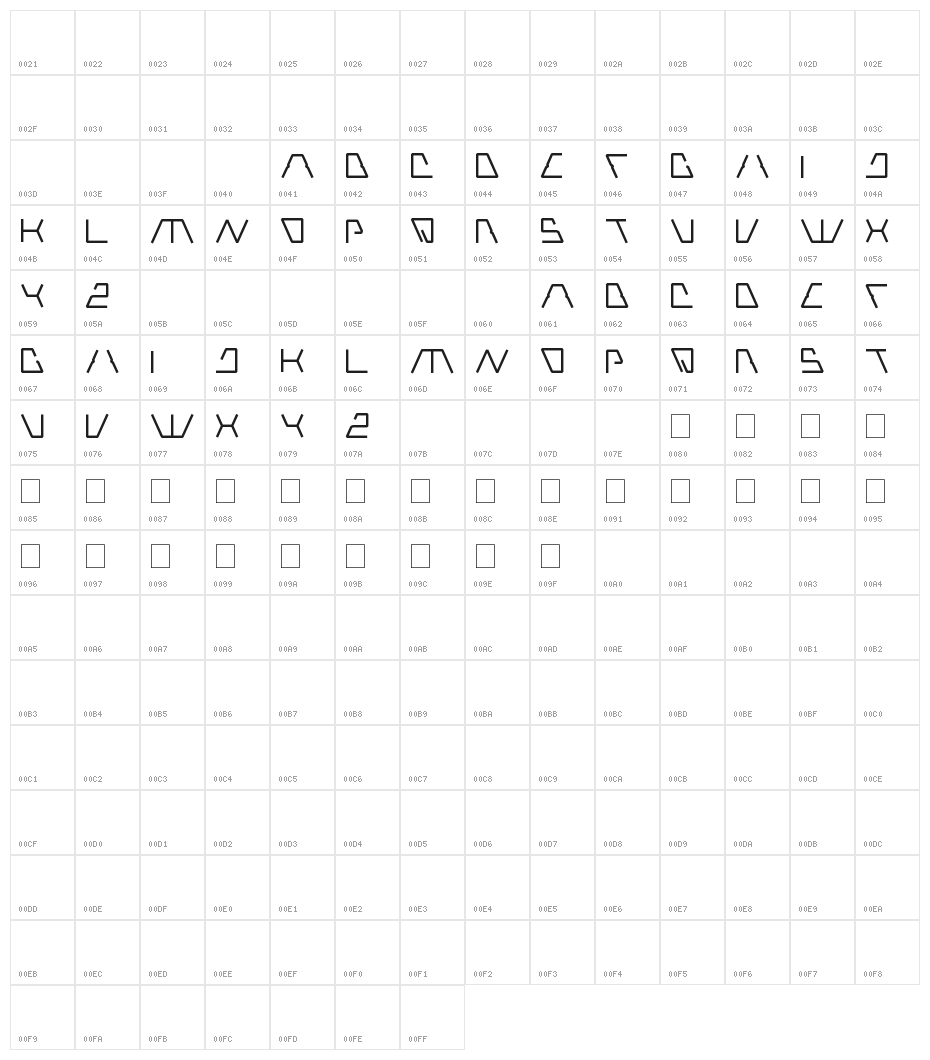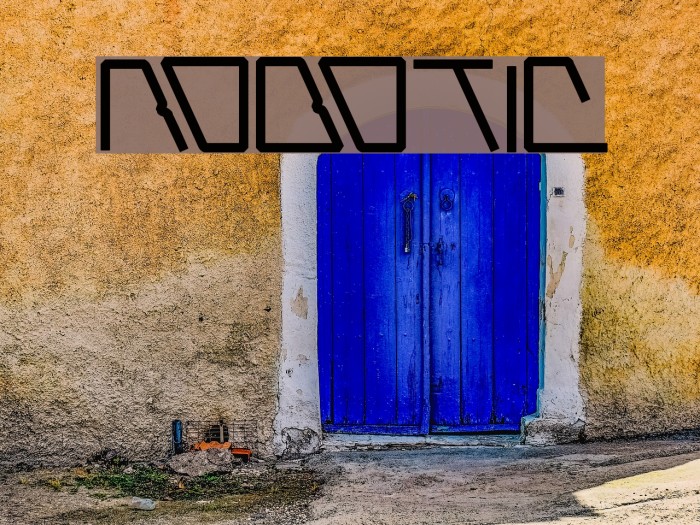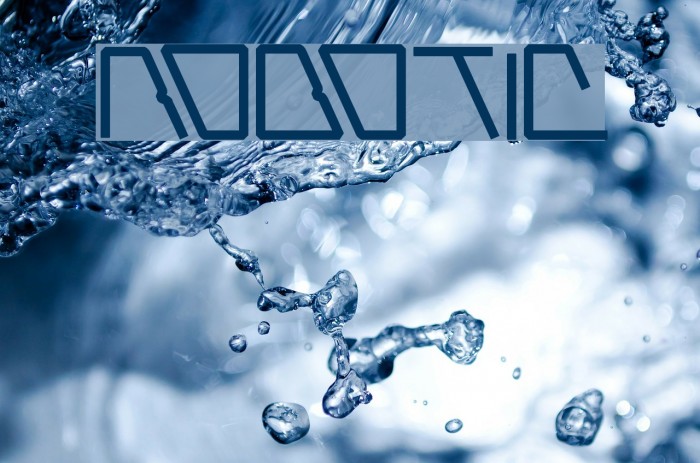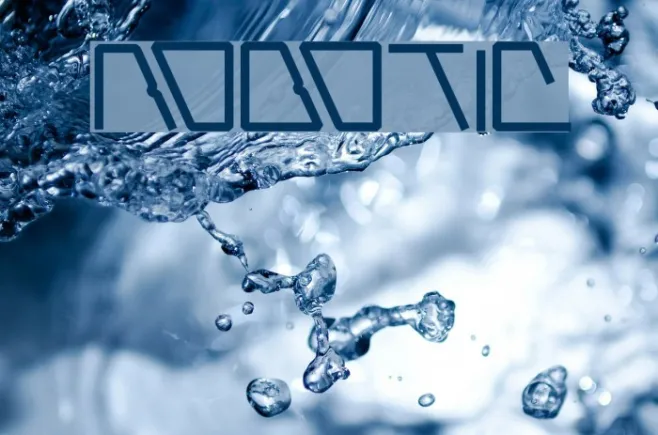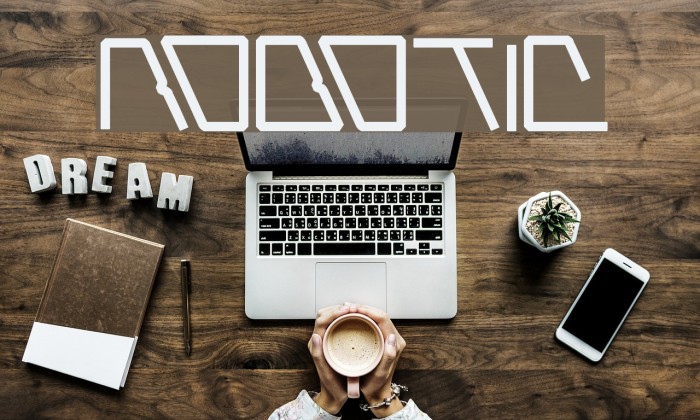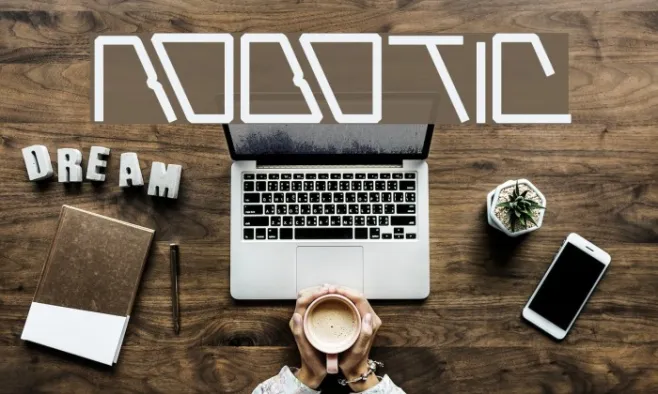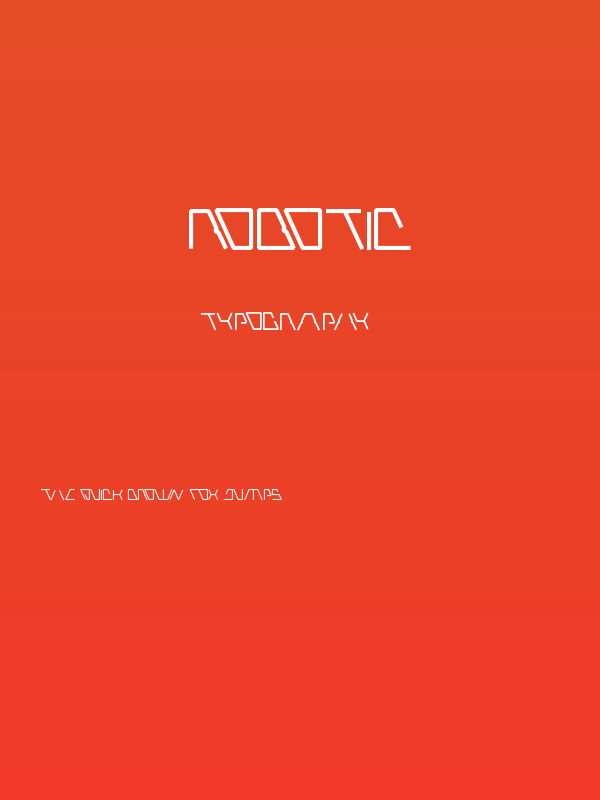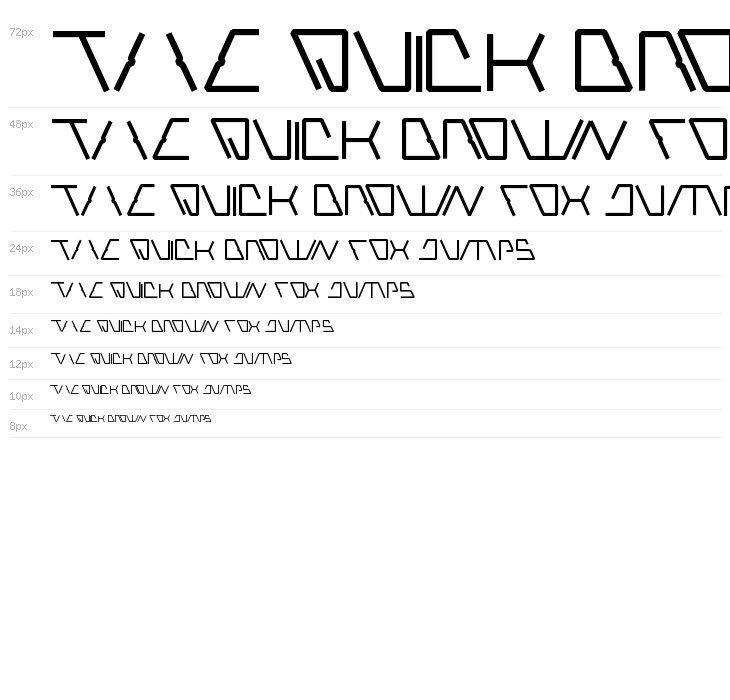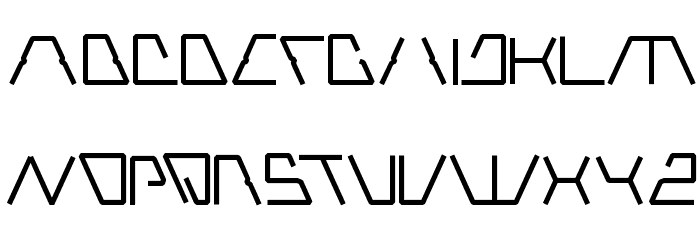
Robotic Font
Robotic Description
This font features a futuristic and angular design, characterized by its geometric and robotic appearance. Each letter is constructed with sharp angles and straight lines, giving it a mechanical and digital feel. The uniformity and precision in the design suggest a high-tech and modern aesthetic, making it suitable for projects that require a cutting-edge and innovative look. The font maintains a consistent stroke width throughout, contributing to its sleek and streamlined appearance.